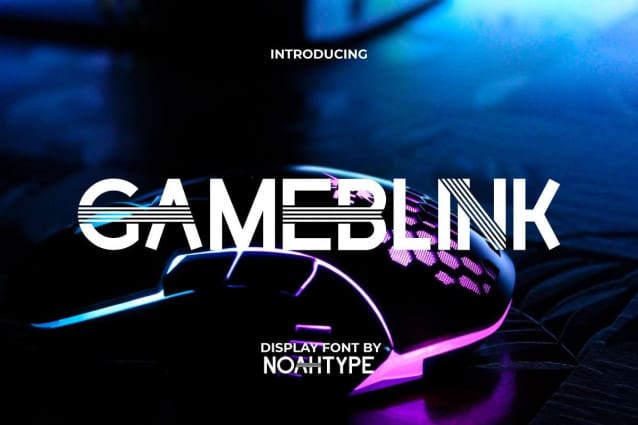
Gameblink Font
Gameblink Font is a modern futuristic gaming display font. The characters of this font may look like a normal modern font, but you will notice how cool it is after using the alternate characters! Just include it in any designs, such as business card, poster, invitation, label, custom design, catalog, magazine, product packaging, screen printing, website, and more!
Gameblink Font include full set of Uppercase and Lowercase Basic Characters, Numerals and Punctuation, also Alternate characters. This font has the potential to be used in various industrial fields that need modern look, such as game developer, event organizer, fashion, accessories, advertisement and marketing, handicrafts, printing, publishing, etc.